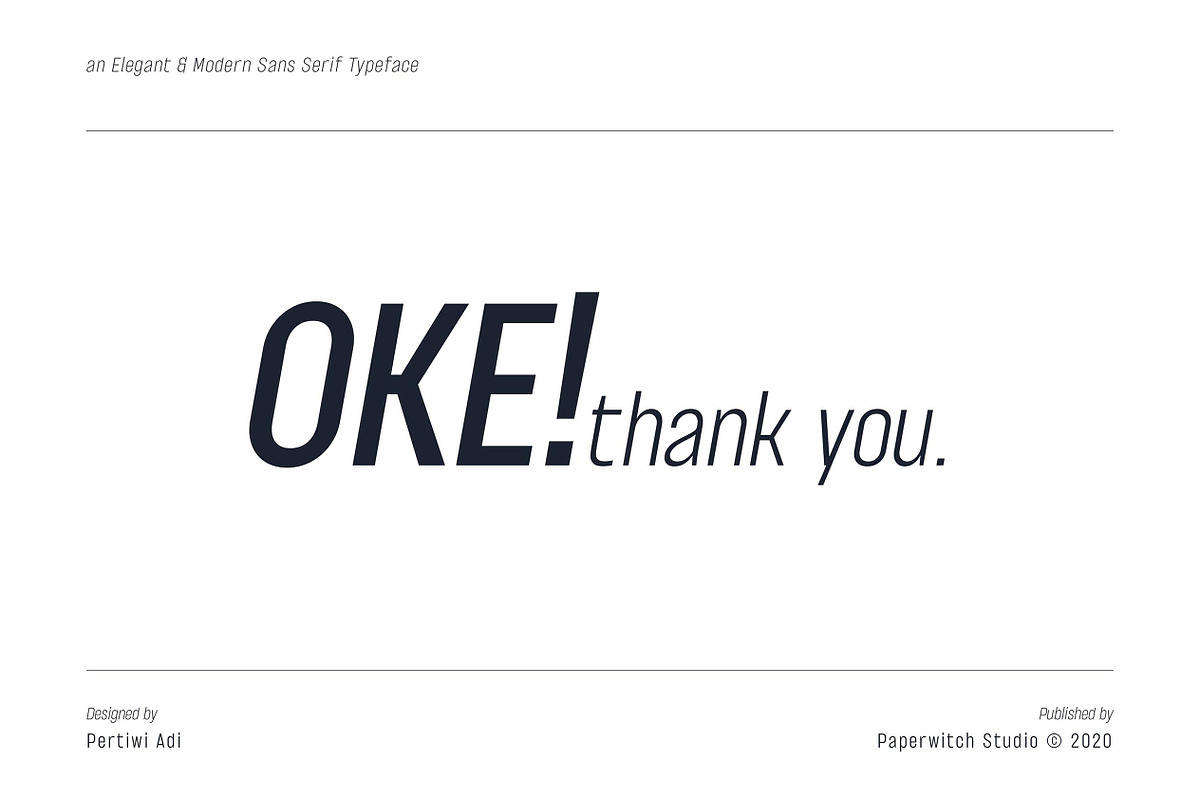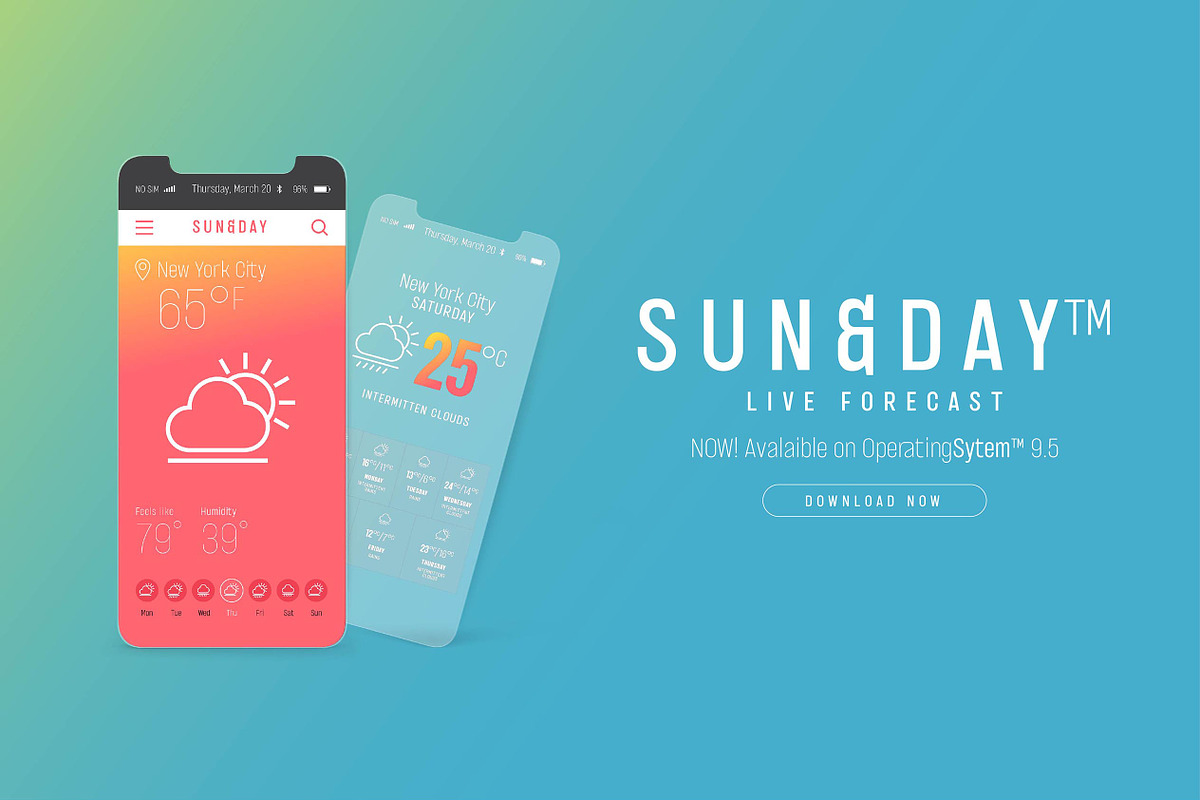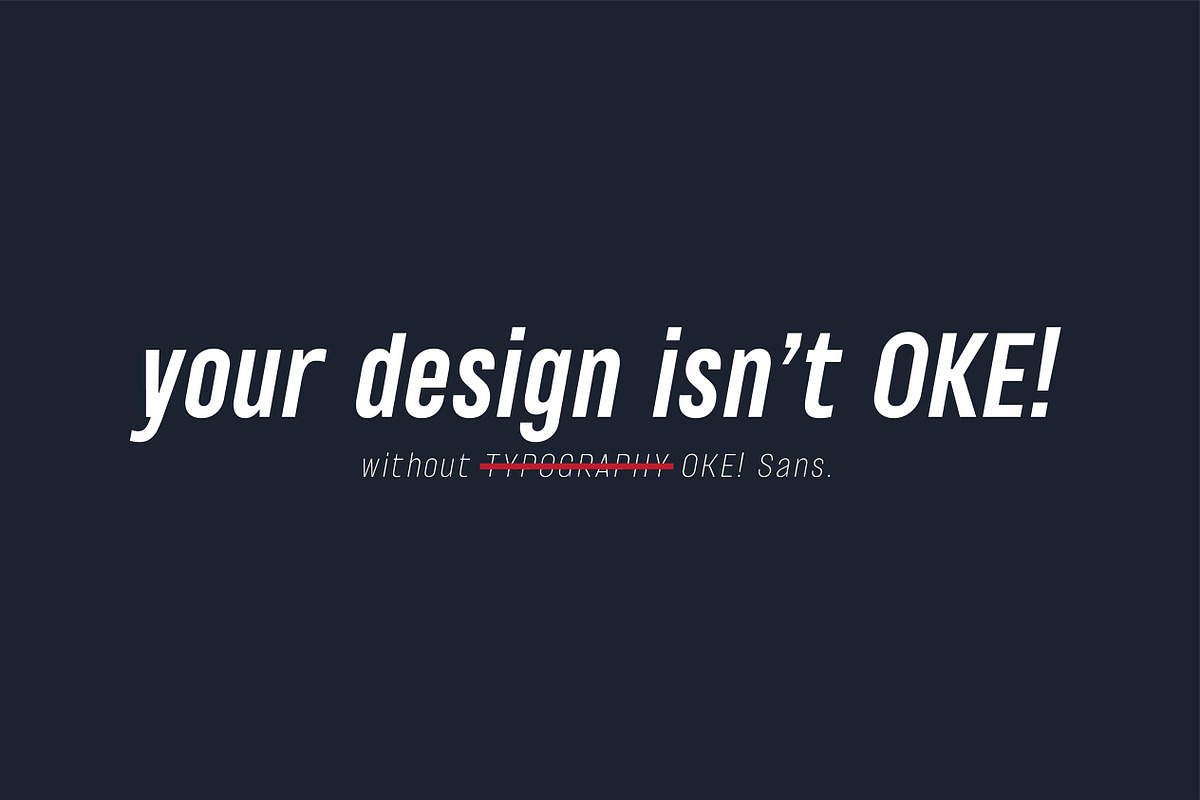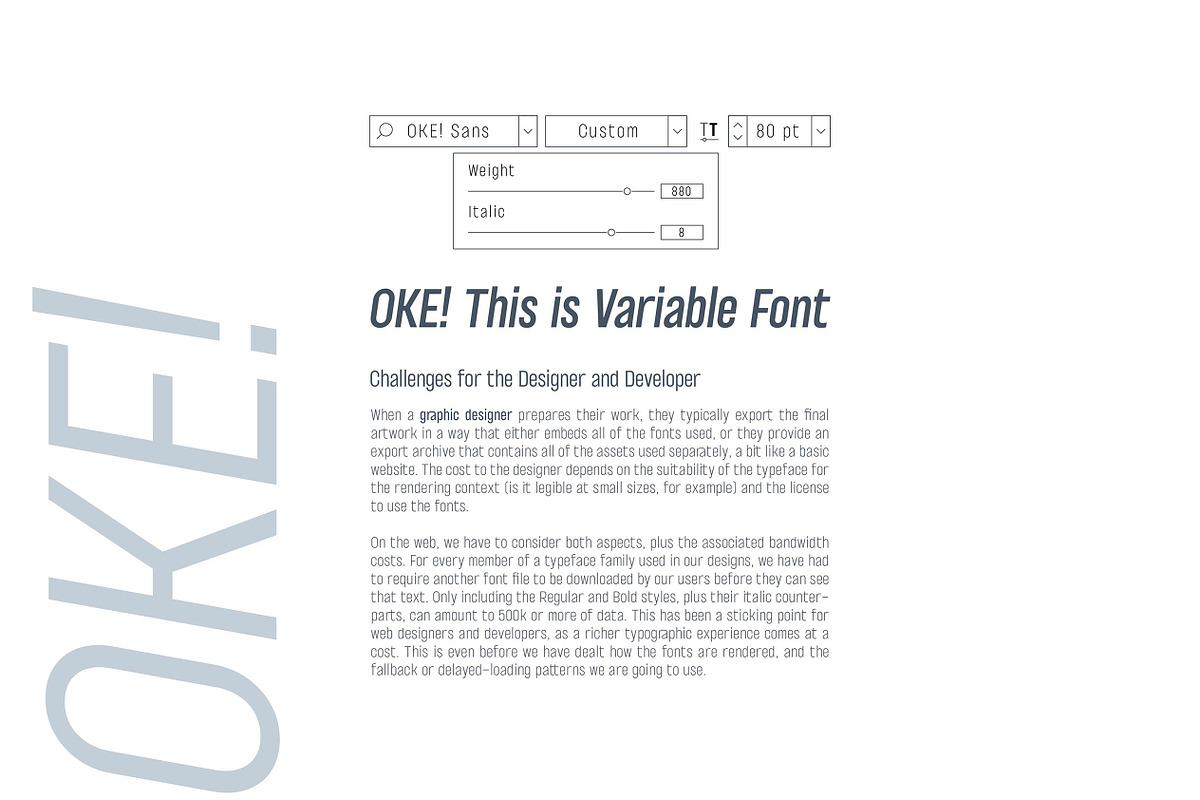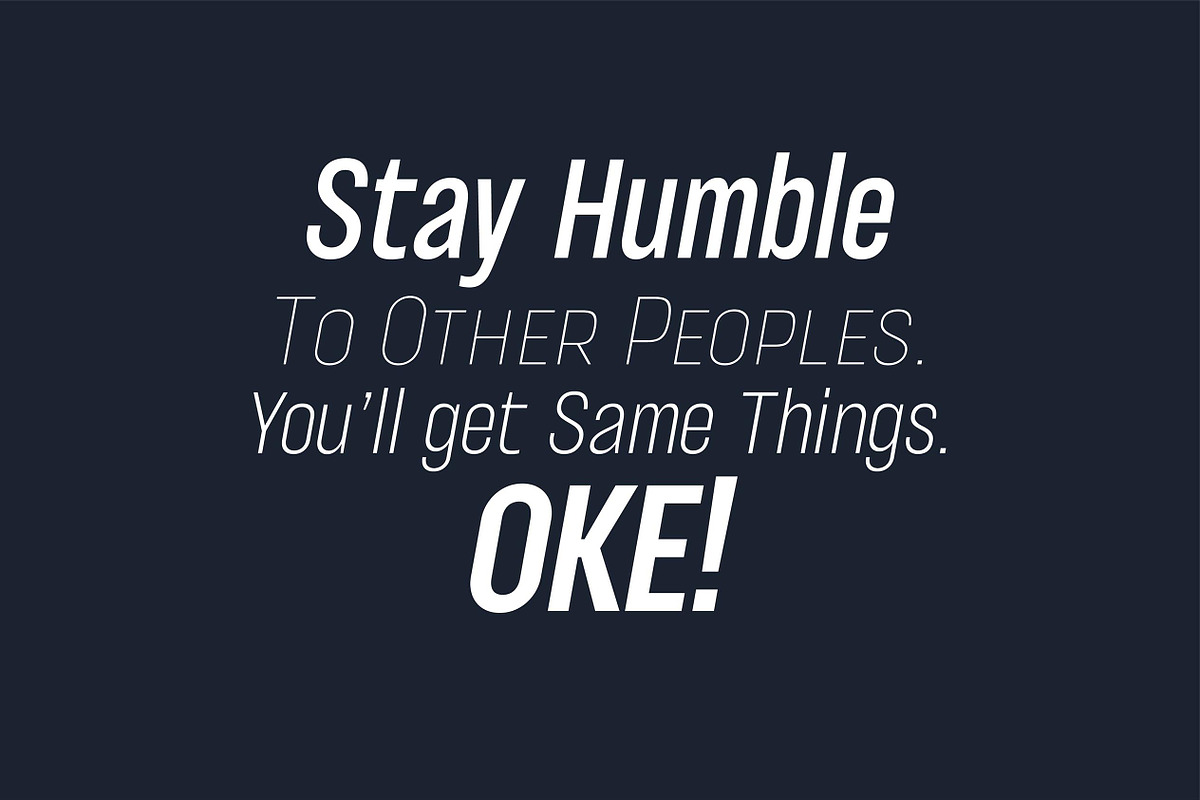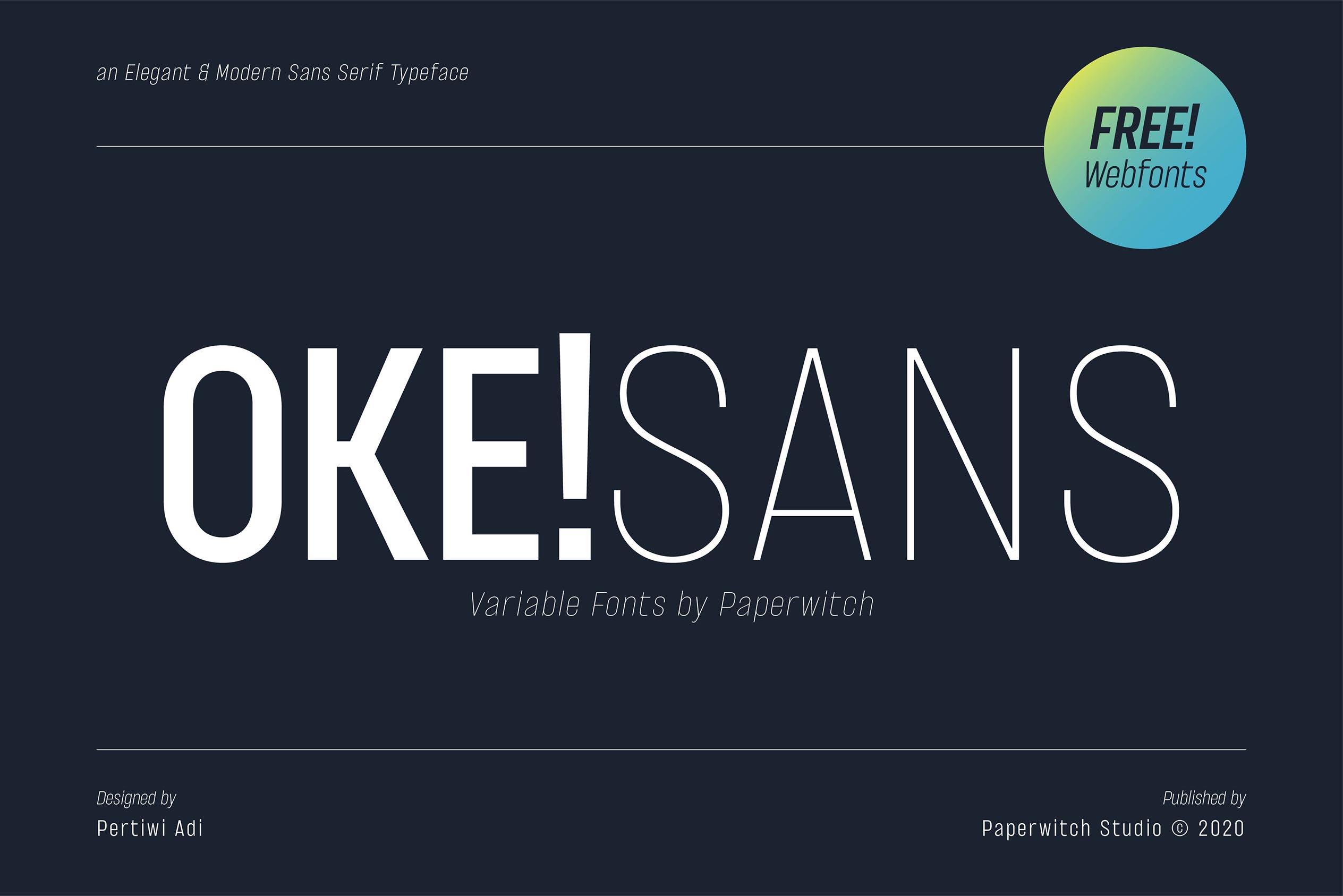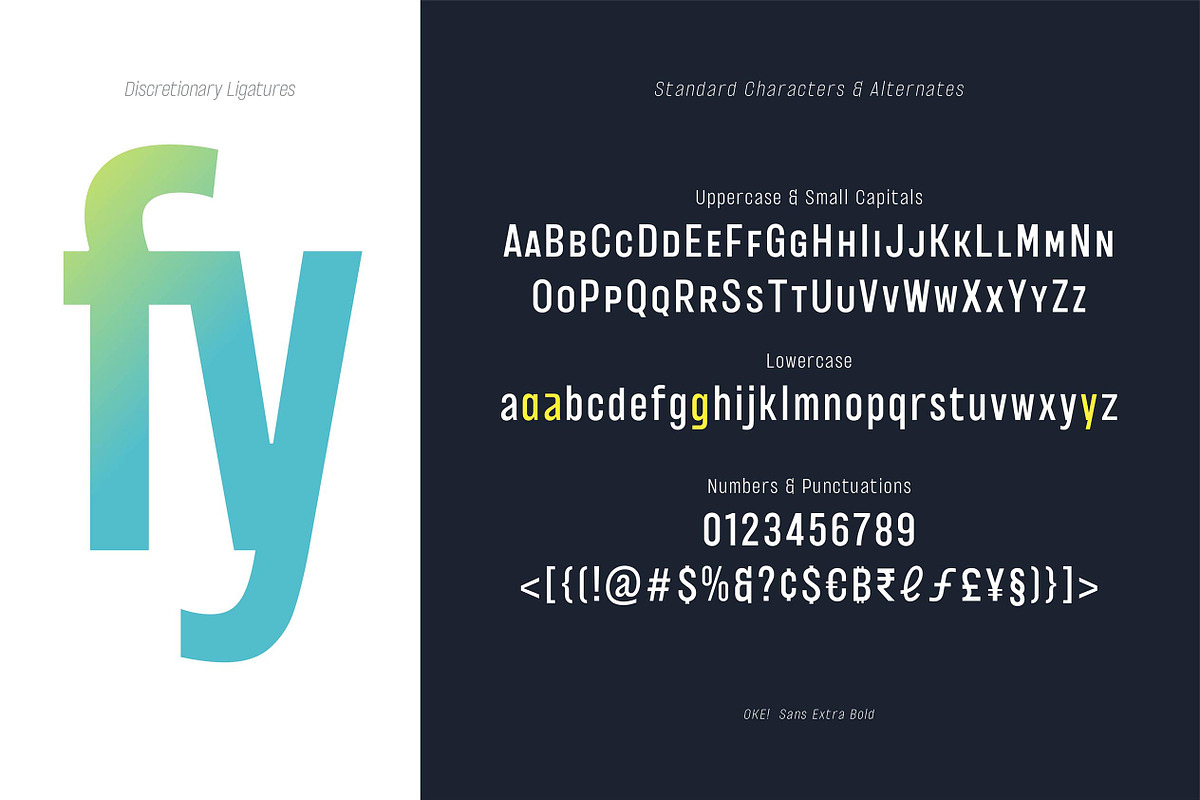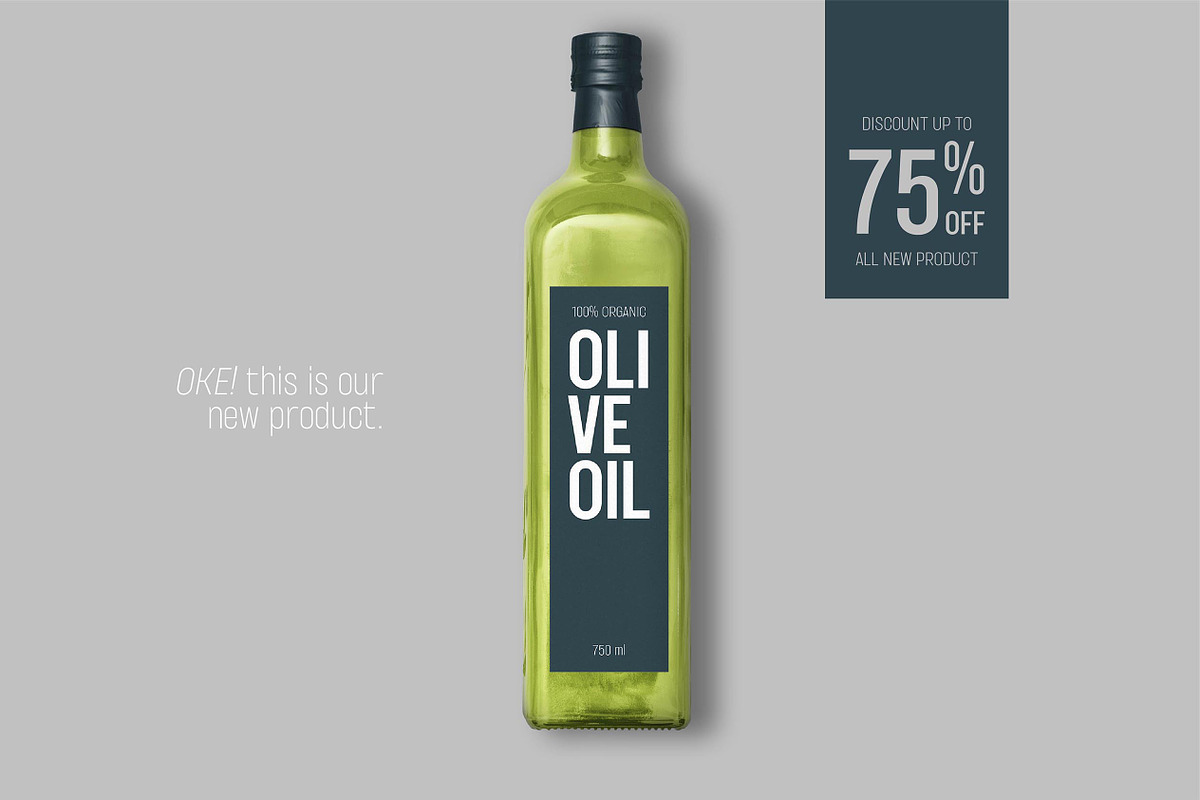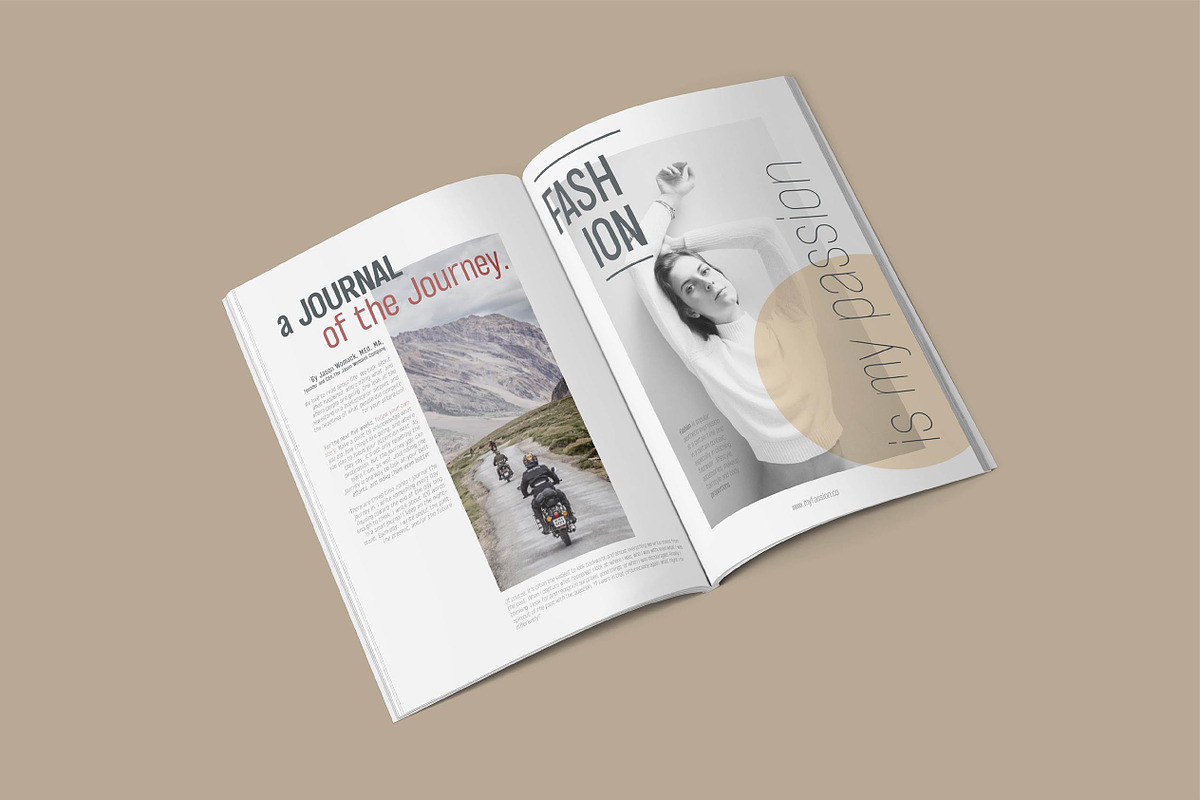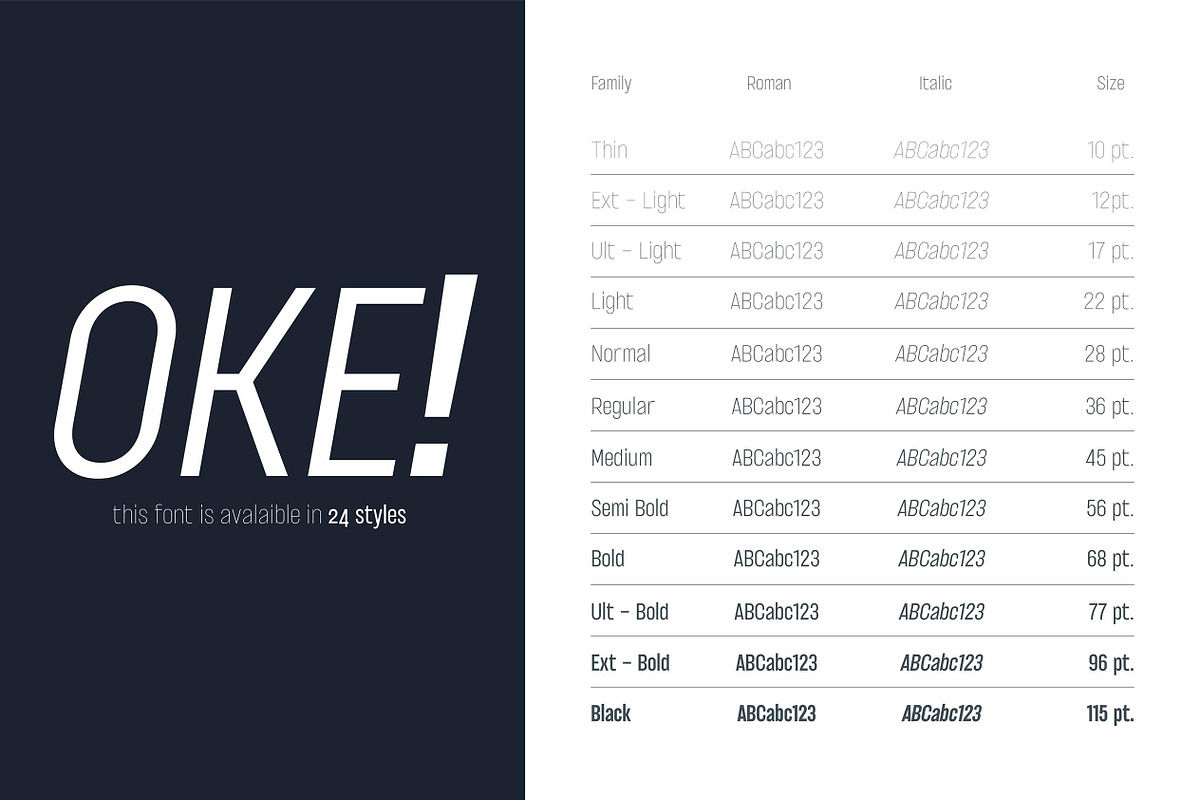
OKE! Sans Family ( Variable Fonts )
OKE! Sans is a font created to meet the needs of Web Designers to create an elegant and modern website. This font has a very strong character, with very high contrast and legibility. So that it will make the reader feel comfortable when reading it.
OKE! Sans is a Variable Font, there are 24 styles from thin to black. Yups! When you buy this font, you will get a free version of Webfonts.